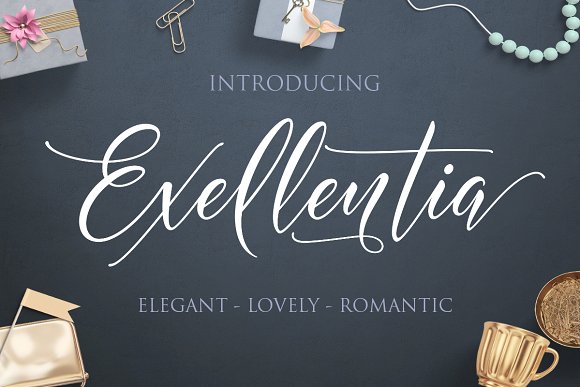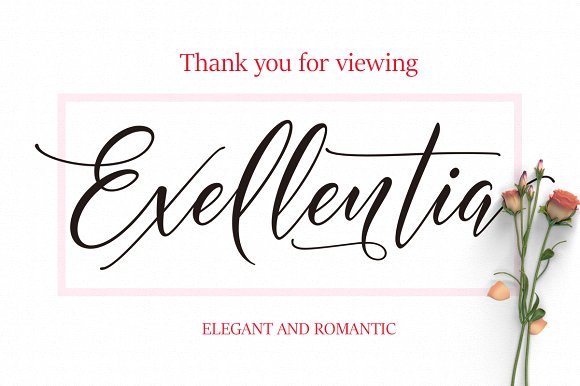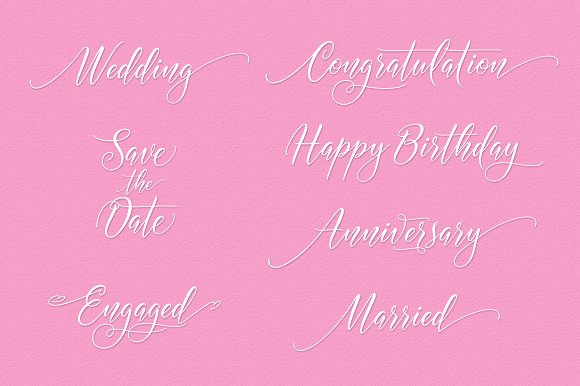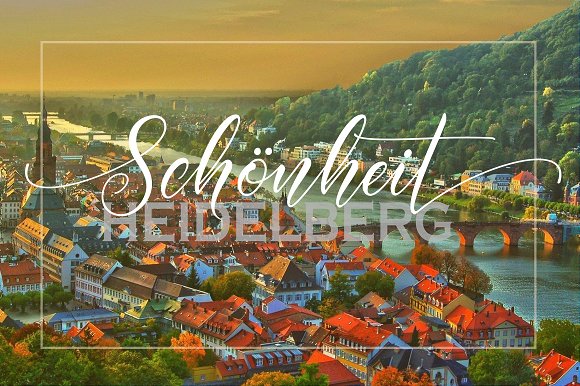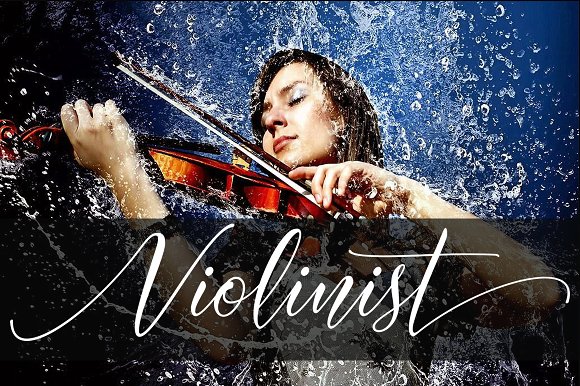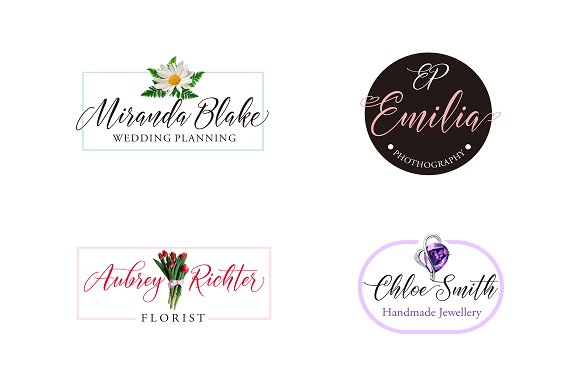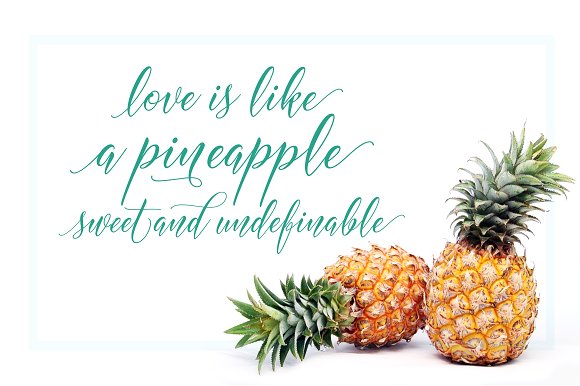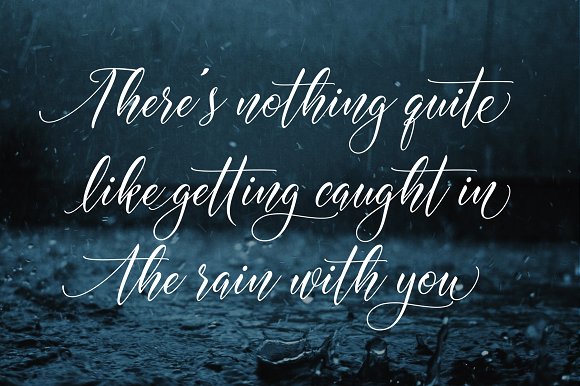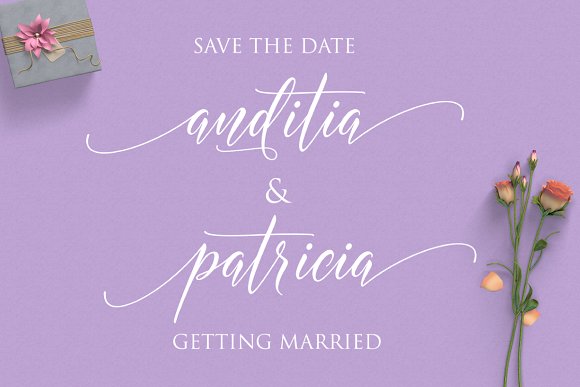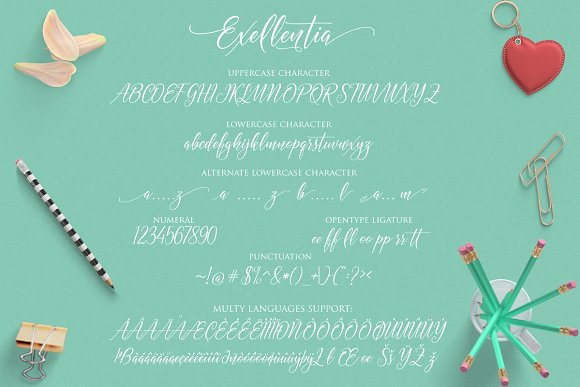
HomeScript FontsExellentia Font Script Fonts Exellentia Font FacebookXPinterestWhatsApp Exellentia Font Poster 2 Exellentia Font Poster 3 Exellentia Font Poster 4 Exellentia Font Poster 5 Exellentia Font Poster 6 Exellentia Font Poster 7 Exellentia Font Poster 8 Exellentia Font Poster 9 Exellentia Font Poster 10 About Exellentia Font Exellentia is a stunning handwritten font with over 520 handwritten characters. DOWNLOAD ON CREATIVE FABRICAThis font is sold and delivered by Creative Fabrica. Font Canyon may earn a commission if you buy through this link. People also explored Sometime Font Style Font Baby Cell Font Handover Signature Font Strongboy Rounded Font Deobird Font Cavilay Script Font Mandala Font Breath Font 326 0 TagsExellentia Font Previous articleKayleight FontNext articleCornelia Font LEAVE A REPLY Cancel reply Comment: Please enter your comment! Name:* Please enter your name here Email:* You have entered an incorrect email address! Please enter your email address here Website: Save my name, email, and website in this browser for the next time I comment. Personal Use Free Masha Song Personal Use Free Read more about this font Arabella Script Personal Use Free Read more about this font Bruttney Personal Use Free Read more about this font Angola Beach Personal Use Free Read more about this font BLOG Transform Your Website: Elevate Your Typography with 7 Best Web Font Generators Are you ready to transform your website's typography from ordinary to extraordinary? Great! Today, we're diving into the world of web font generators, which... How to Install and Use Fonts on Windows, macOS, and Web Projects Free Fonts Risk: Why Free Fonts Can Be Dangerous for Designers Top 10 Handwritten Fonts That Elevate Your Designs